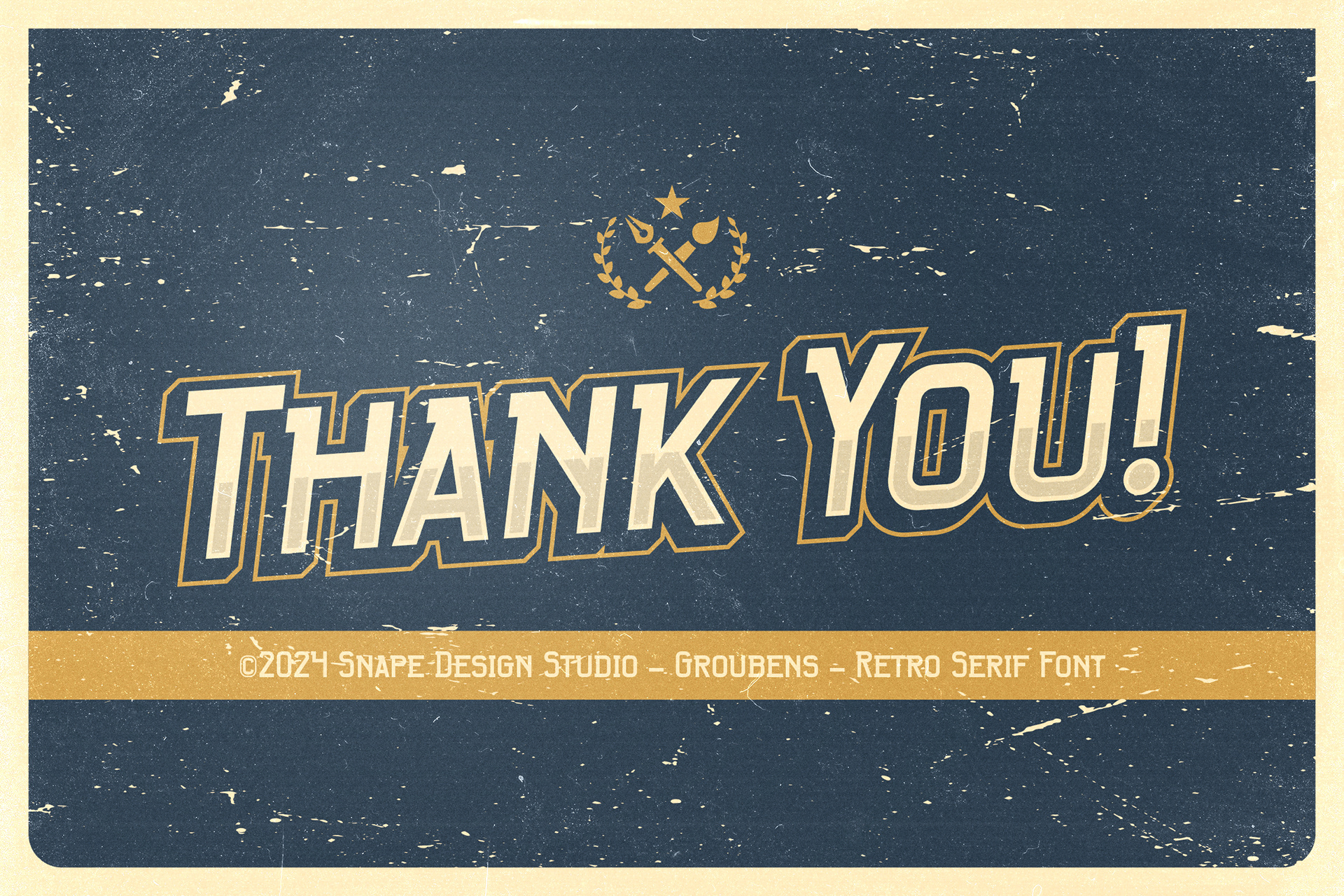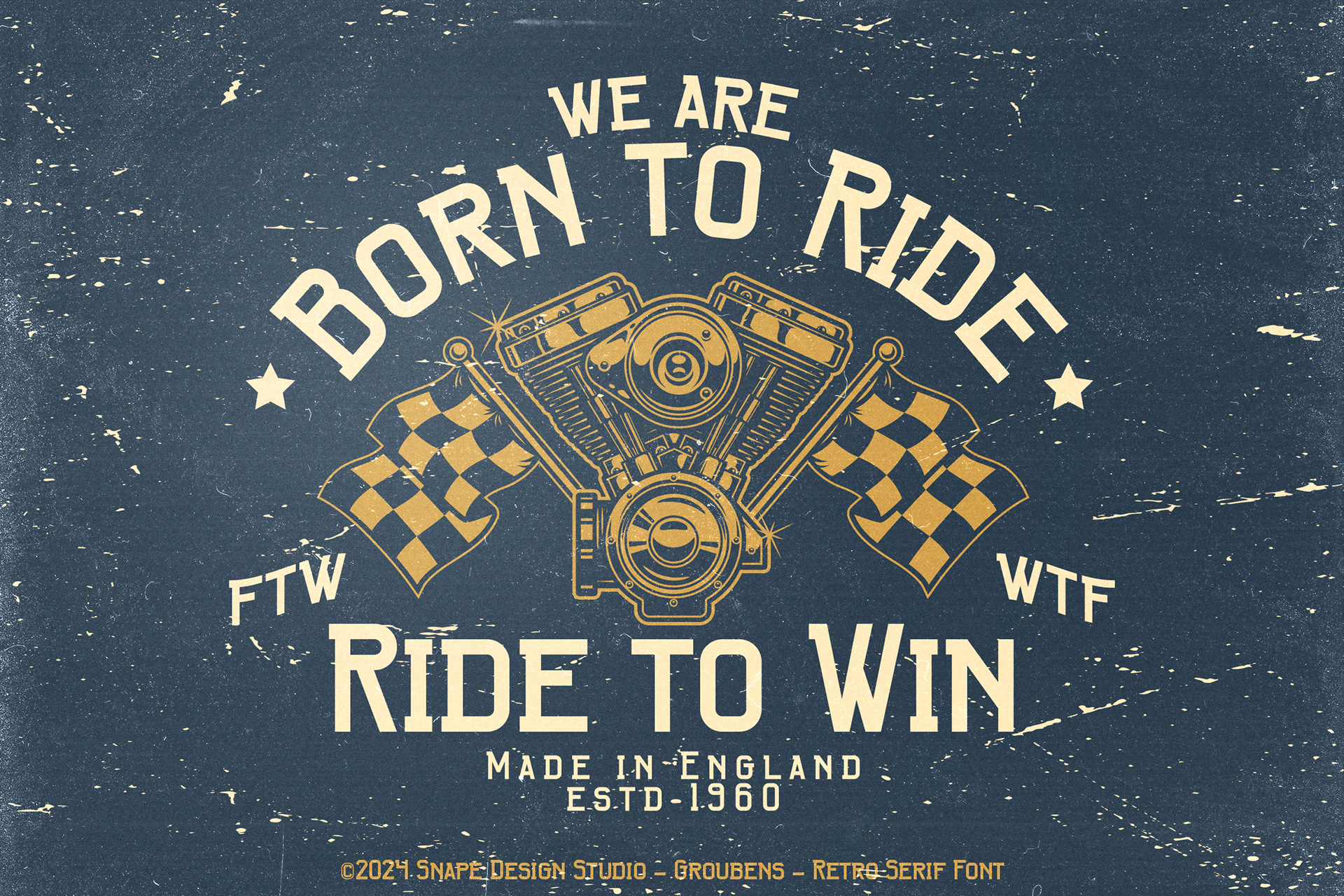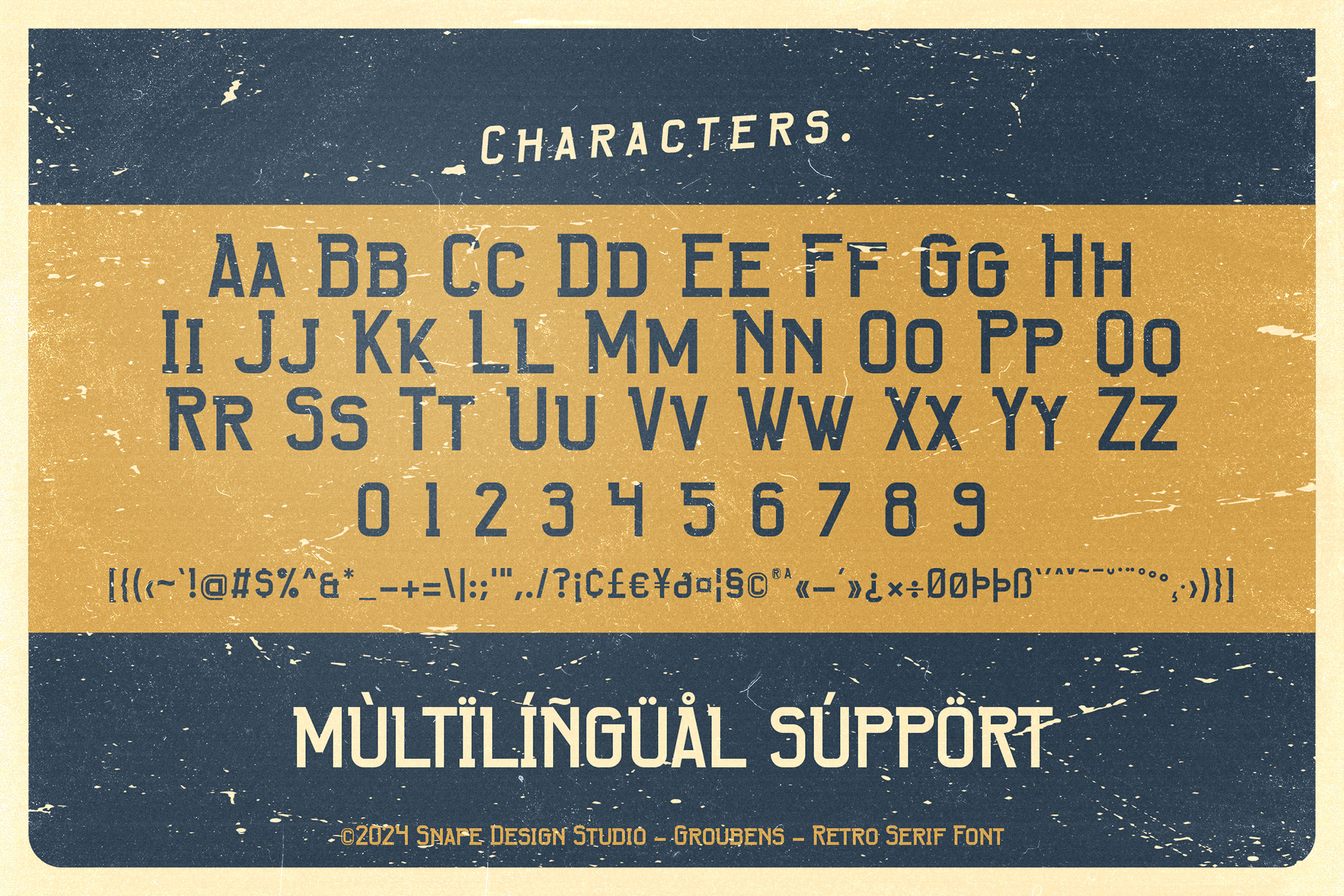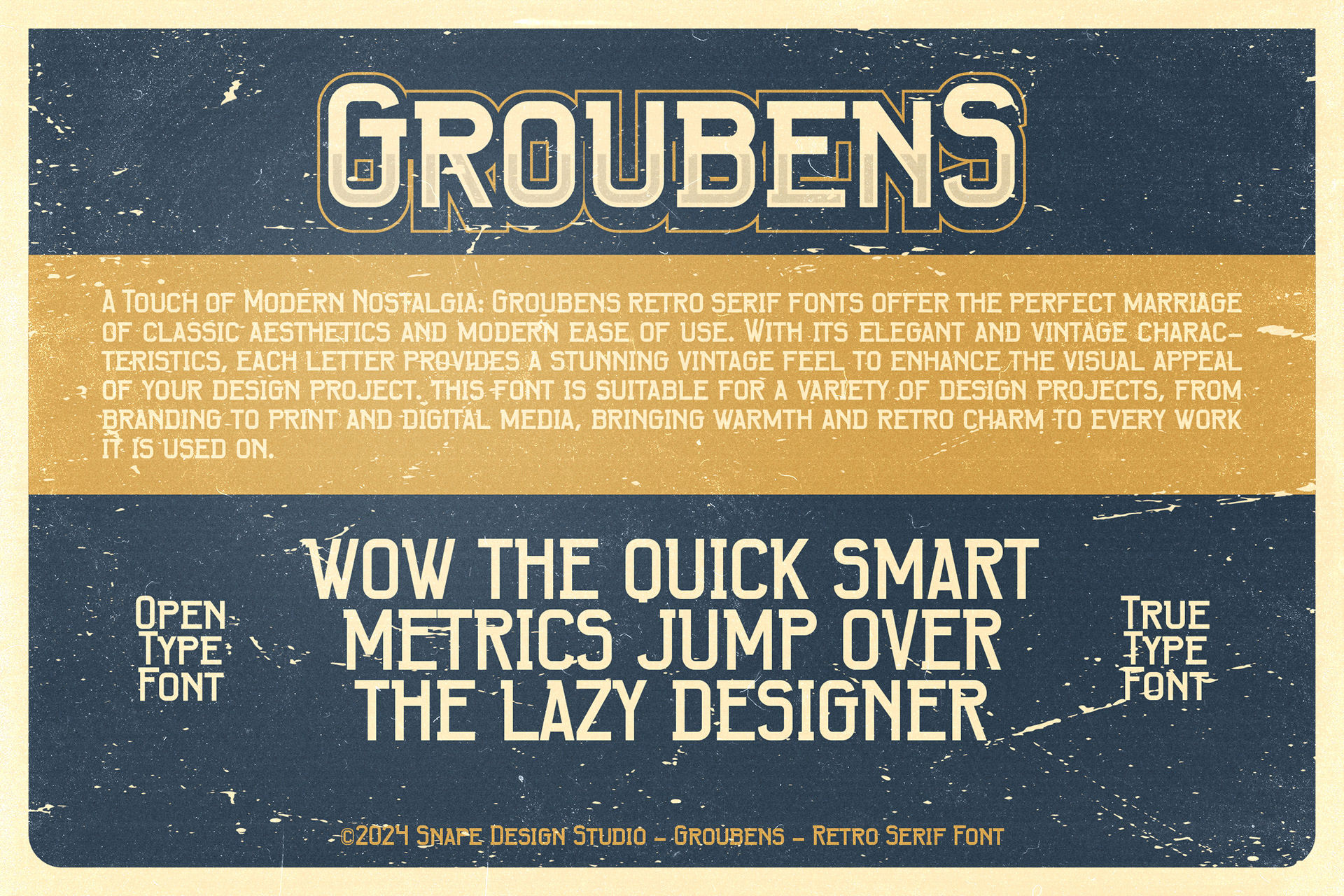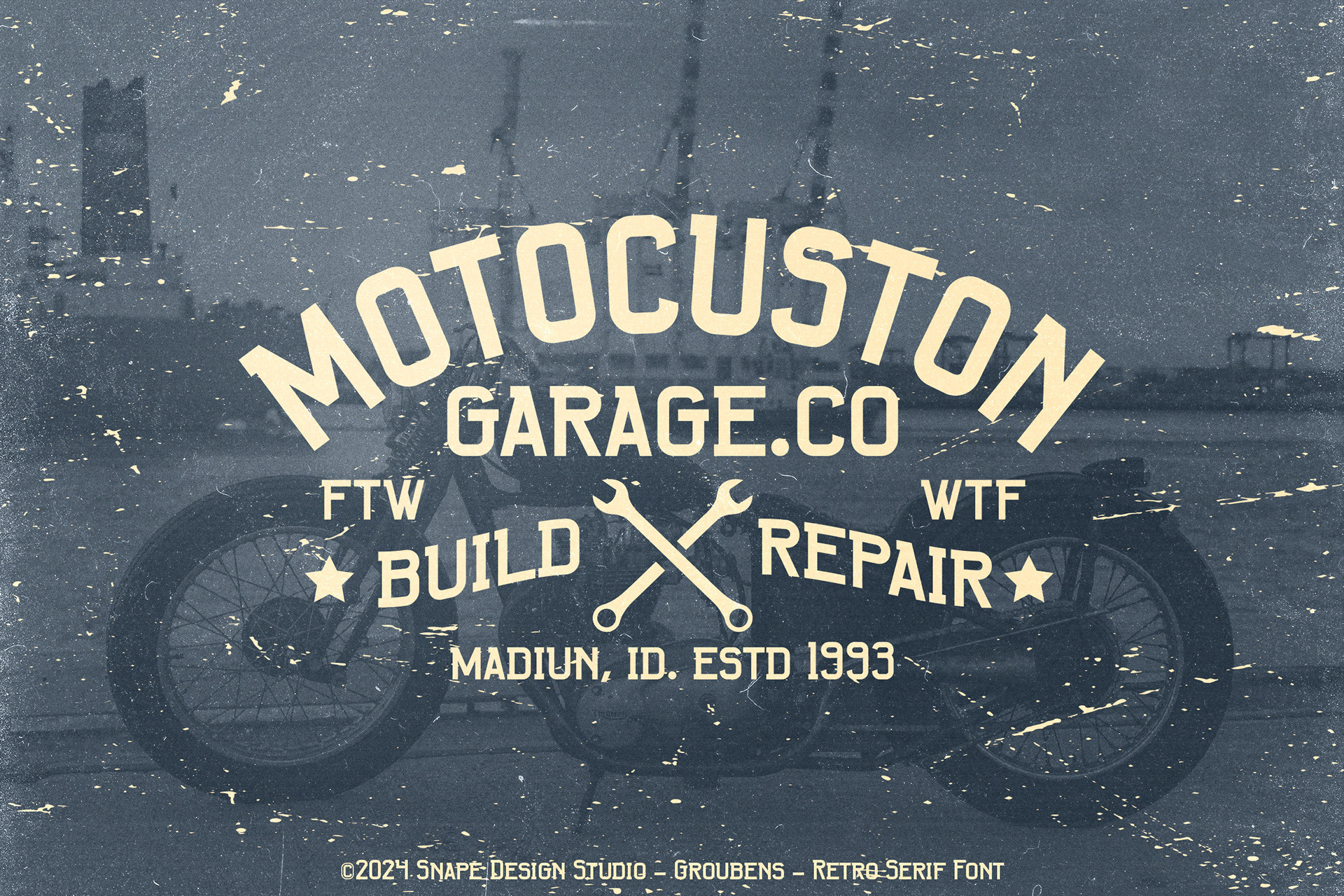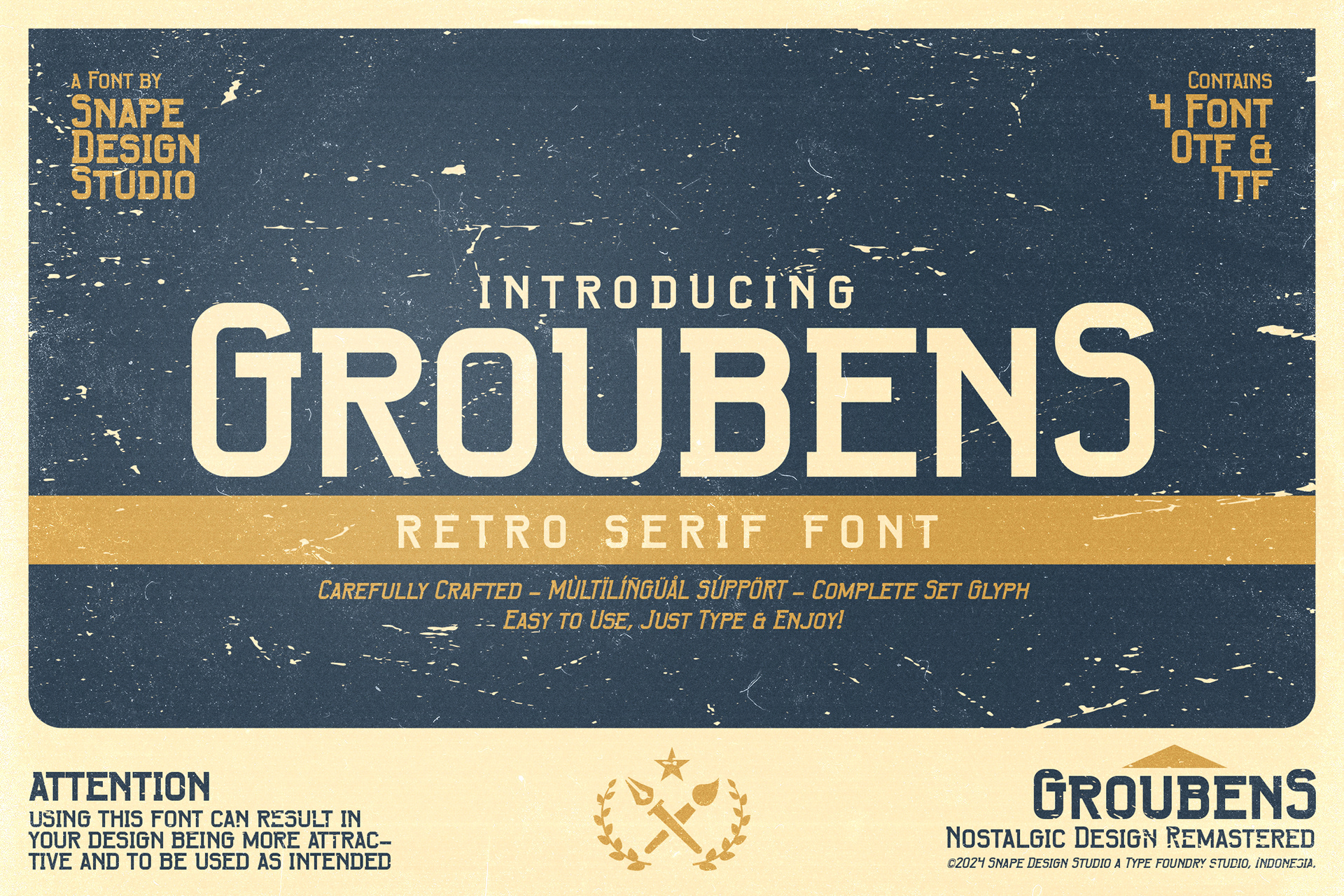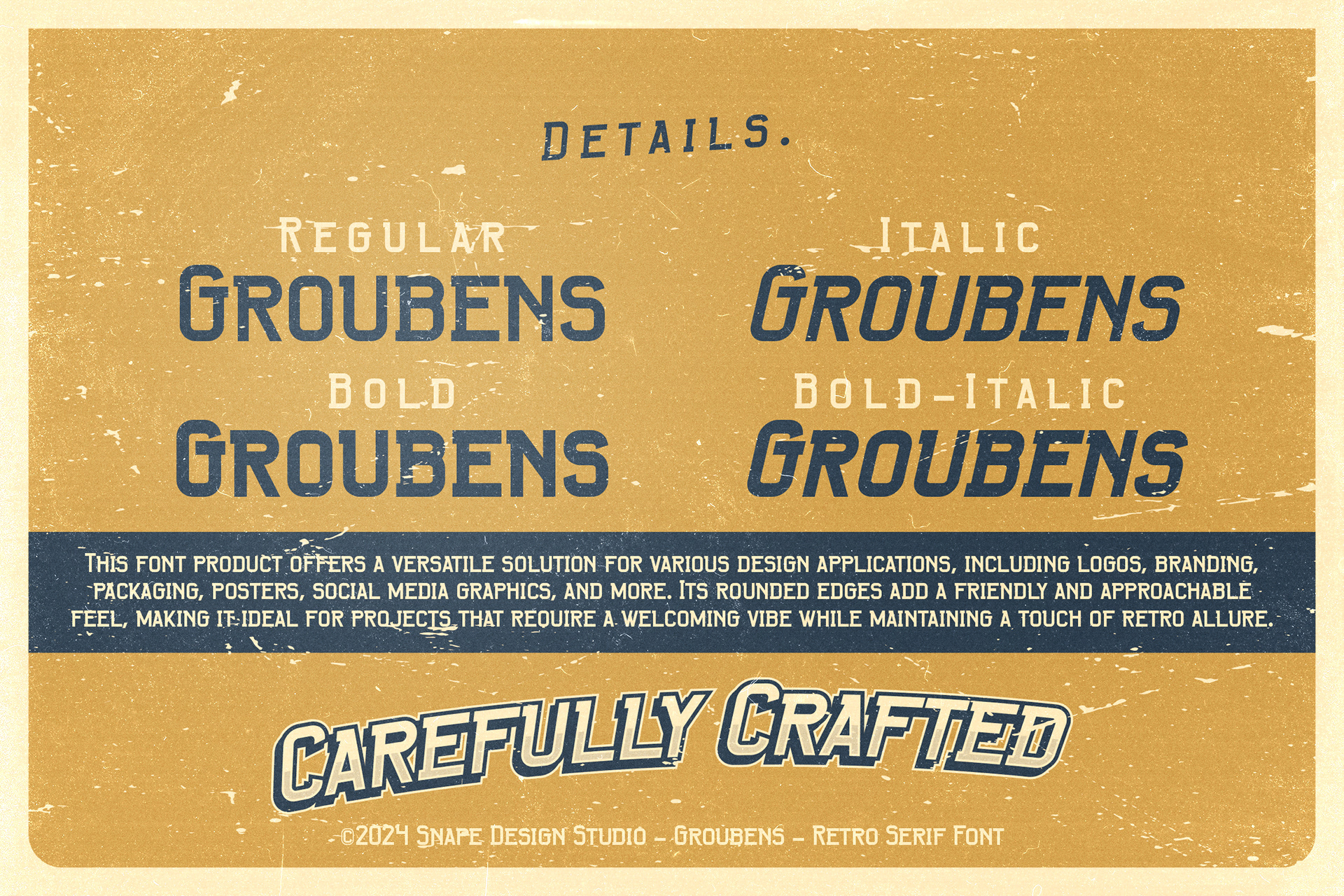
Groubens, a retro serif font, infuses your designs with a timeless sophistication reminiscent of mid-century typography. Its classic serifs and clean lines evoke a sense of nostalgia while maintaining modern readability. With Groubens, add a touch of vintage charm to your projects effortlessly.
Groubens - Retro Serif Font design by Ario Sabrang Damar publish under Snape Design Studio